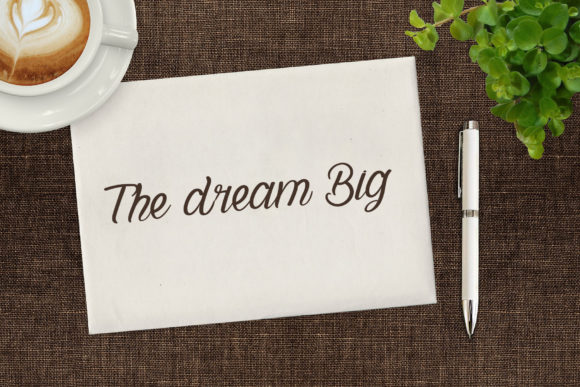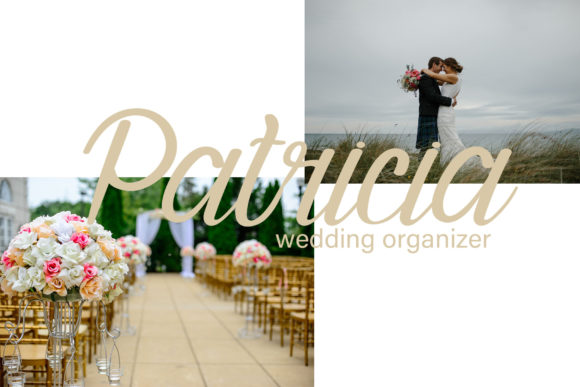
Outline Font
db-ku.com - Script & Handwritten -- Outline is a sweet handwritten font made with great care to produce the expected outcomes. This font can be used for writing various kinds of products according to their respective needs.